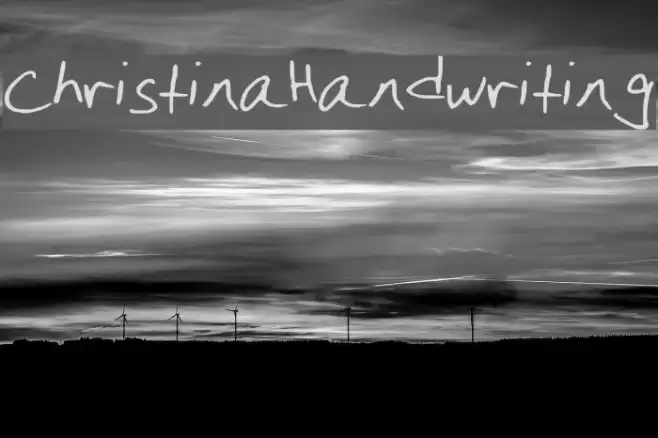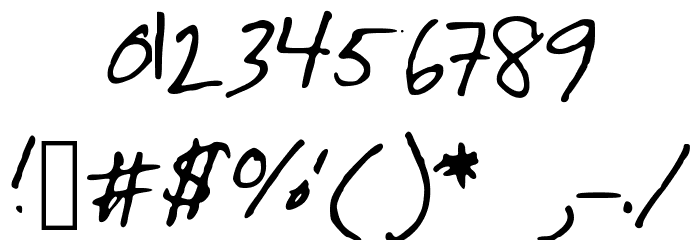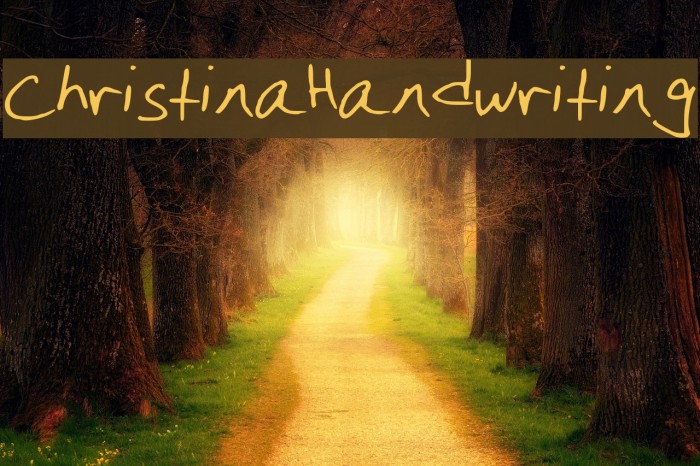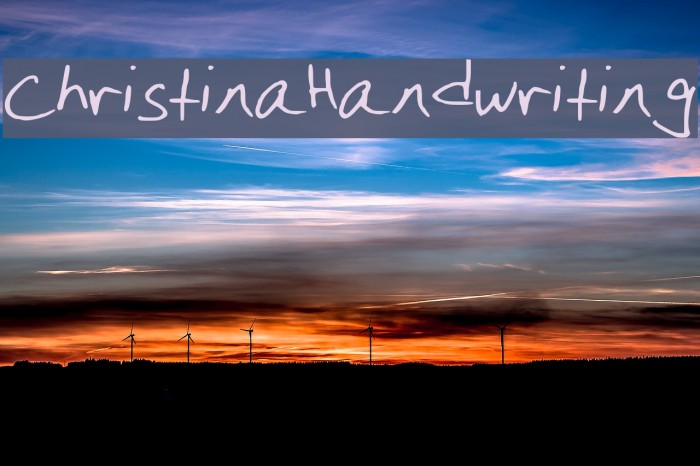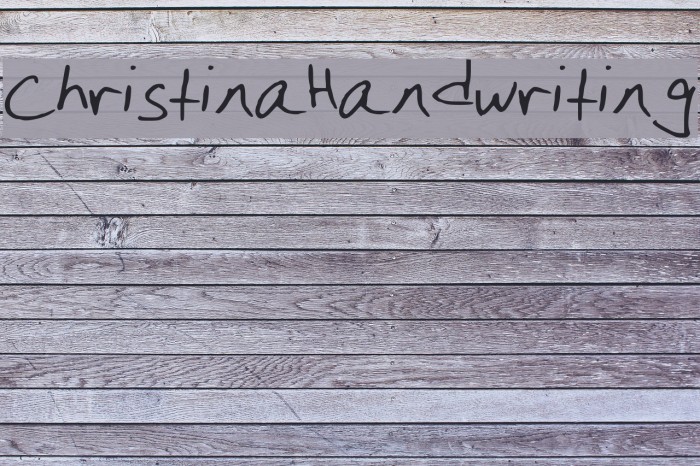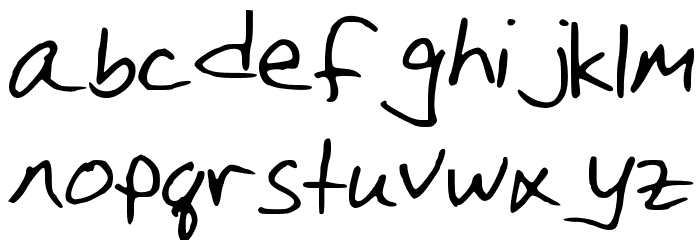
ChristinaHandwriting Font
ChristinaHandwriting Description
This font exudes a casual and personal touch, reminiscent of authentic handwriting. The letters are slightly irregular, with varying stroke widths that add to its organic feel. The uppercase and lowercase letters flow naturally, with a playful and informal style. The numbers and special characters maintain the same handwritten aesthetic, making it versatile for various uses. The overall appearance is approachable and friendly, ideal for projects that require a human touch.
A casual, handwritten-style font with a personal and informal feel from Handwritten fonts.
- Proposed Projects: Ideal for personal notes, invitations, greeting cards, and creative projects that require a human touch.
- Overall Style: Casual
- Use Case: Headlines, Informal text, Creative projects